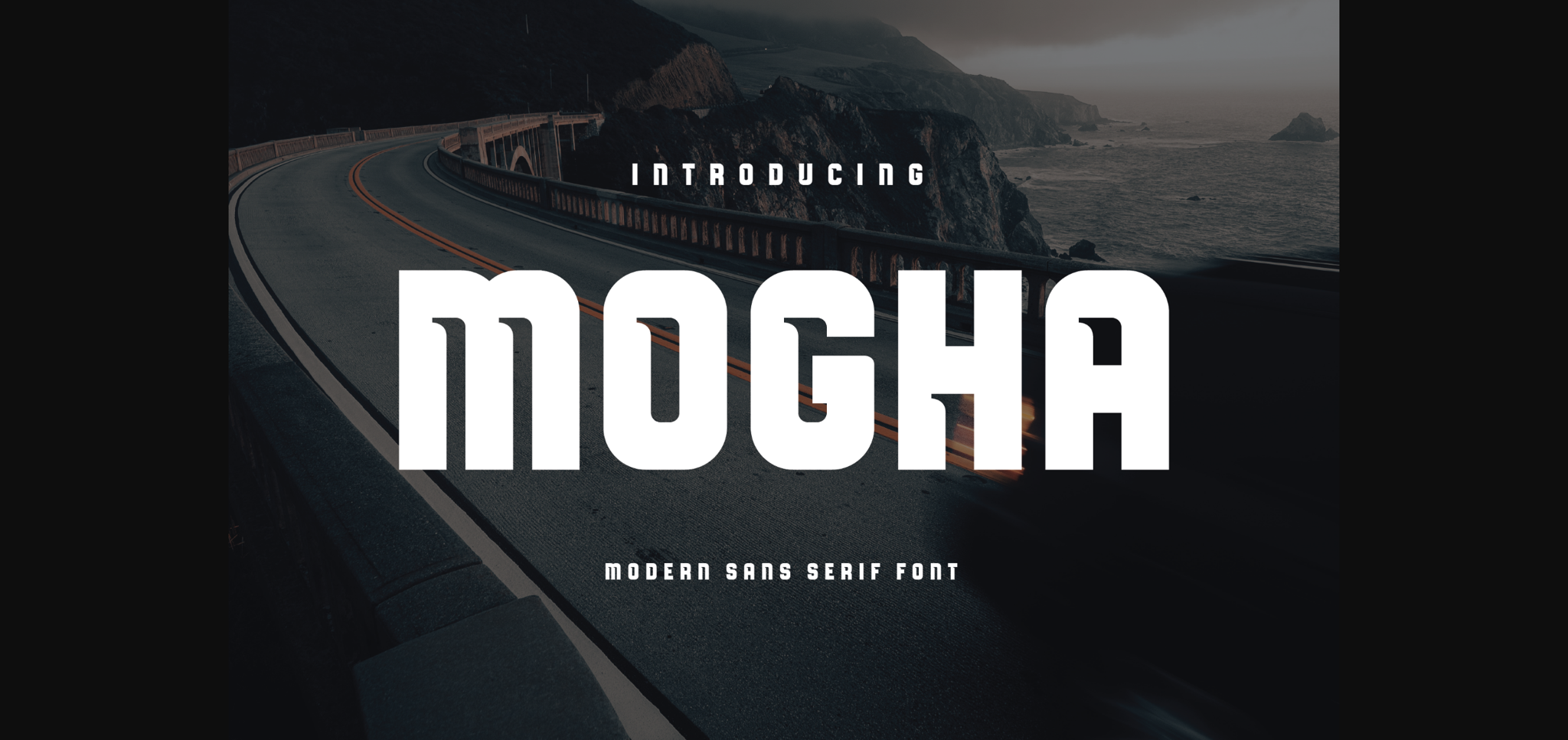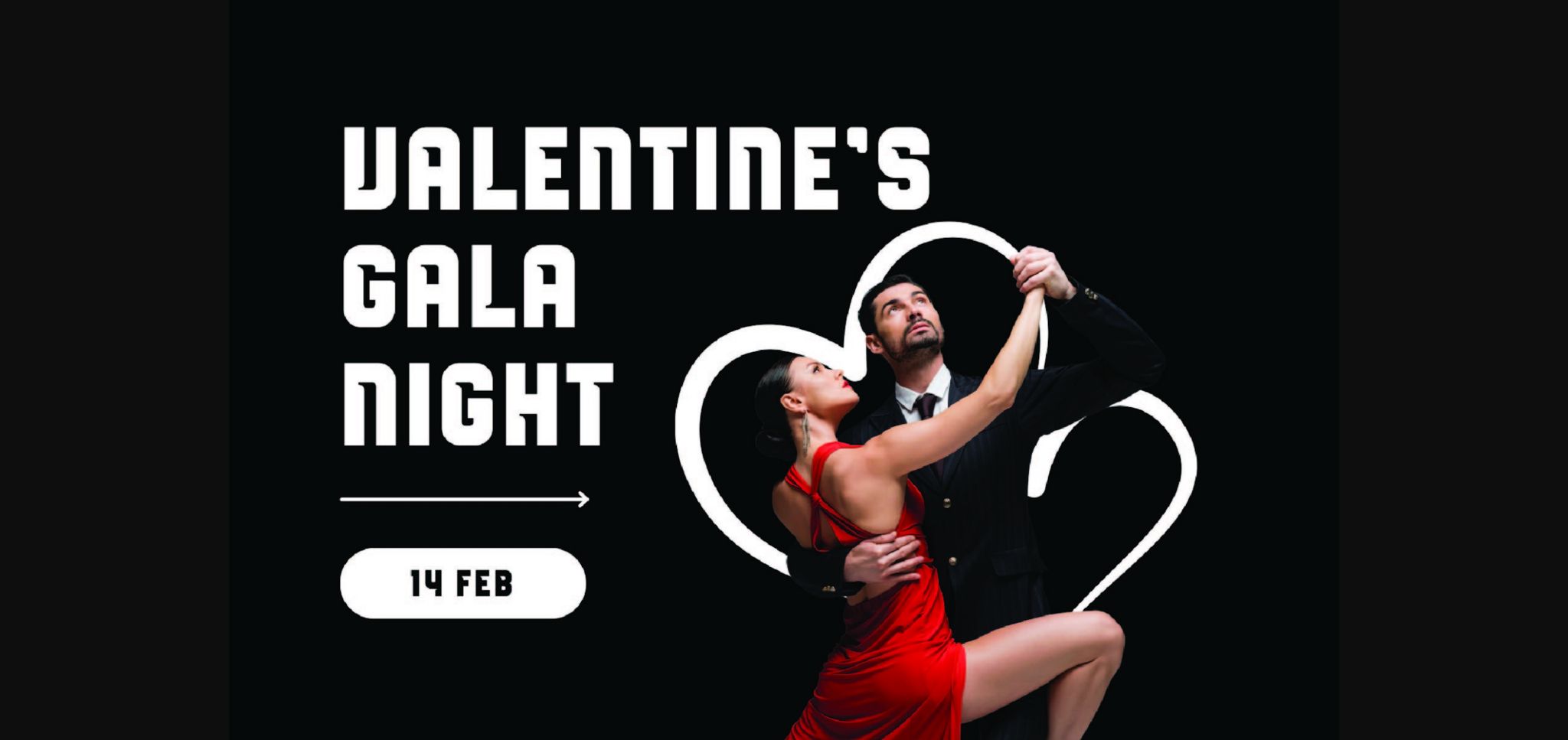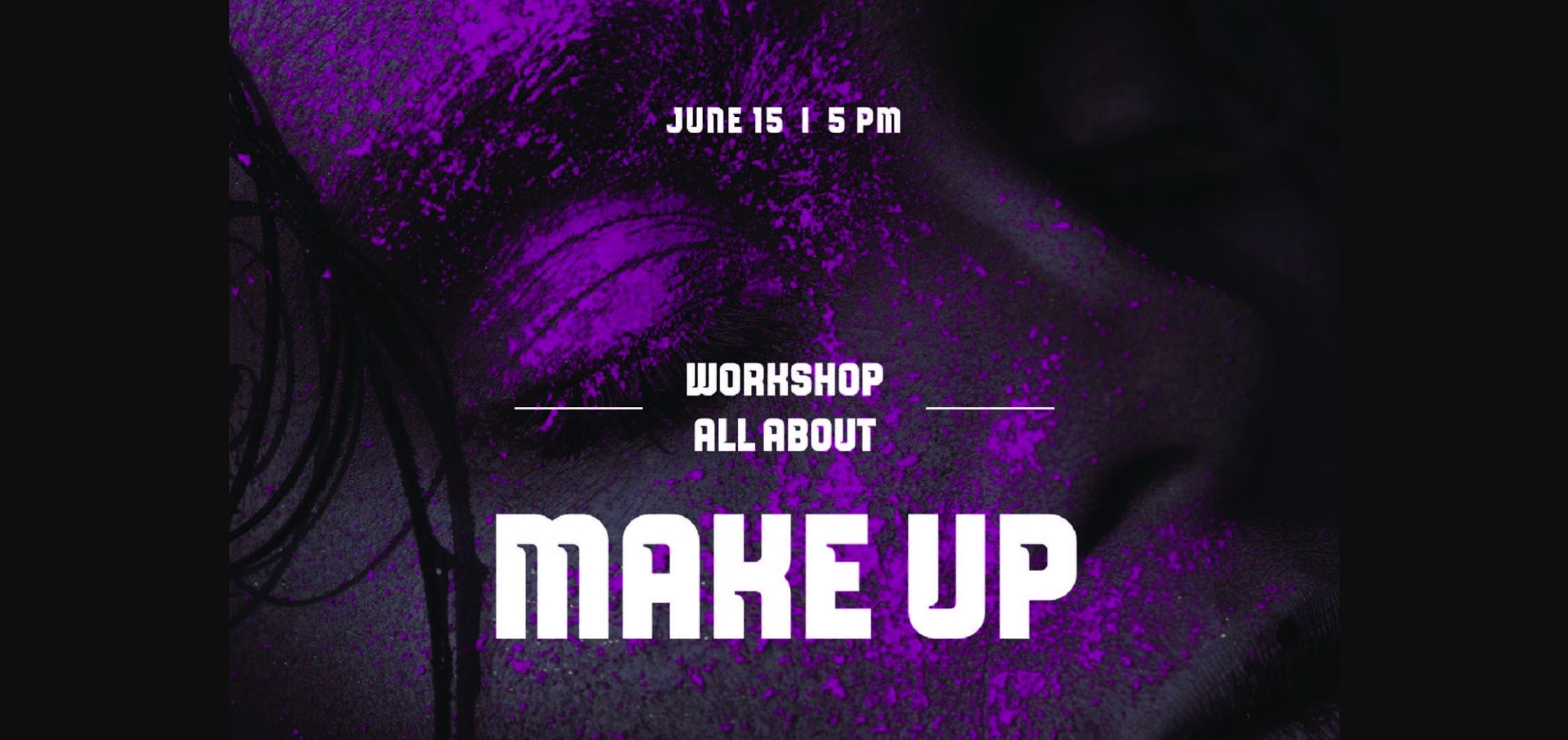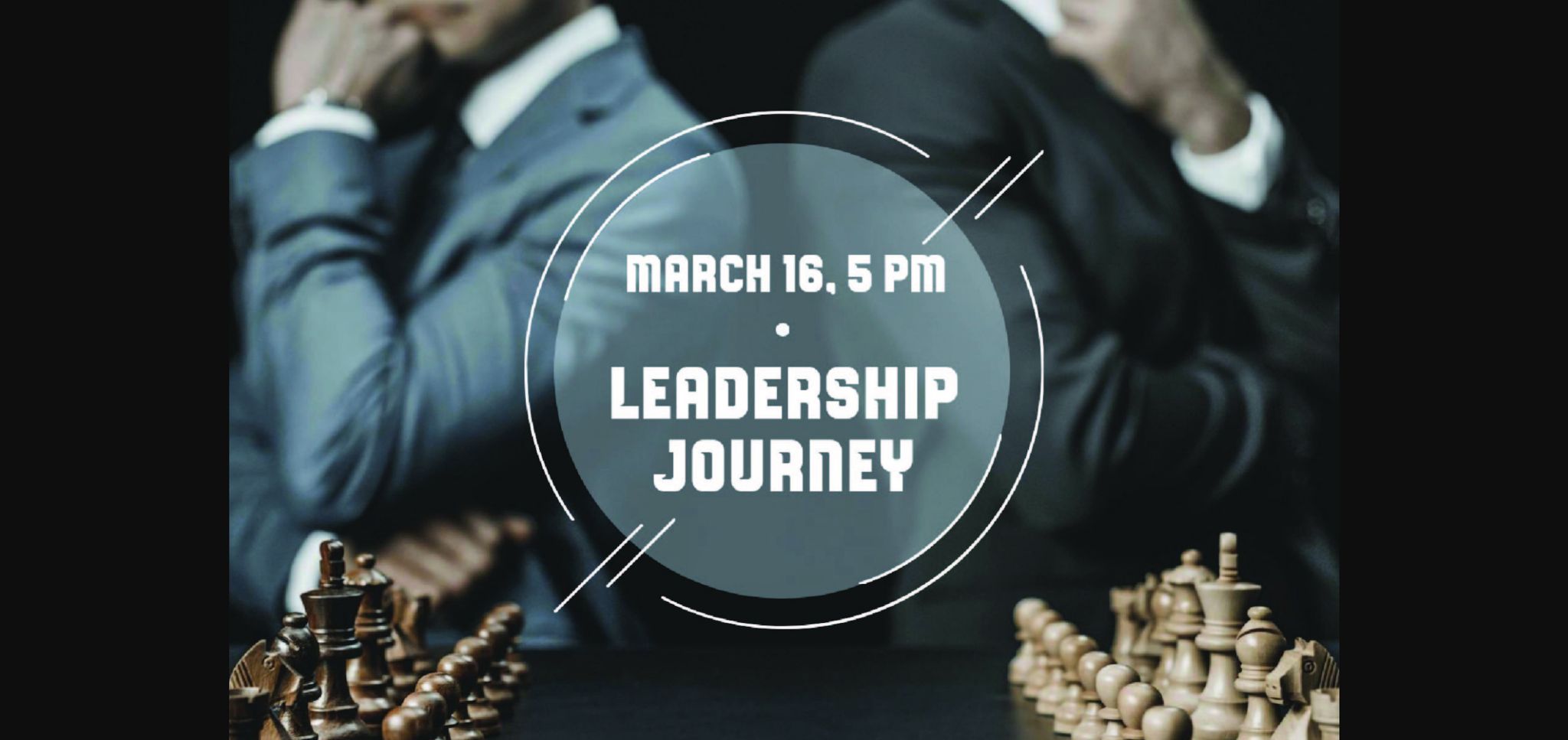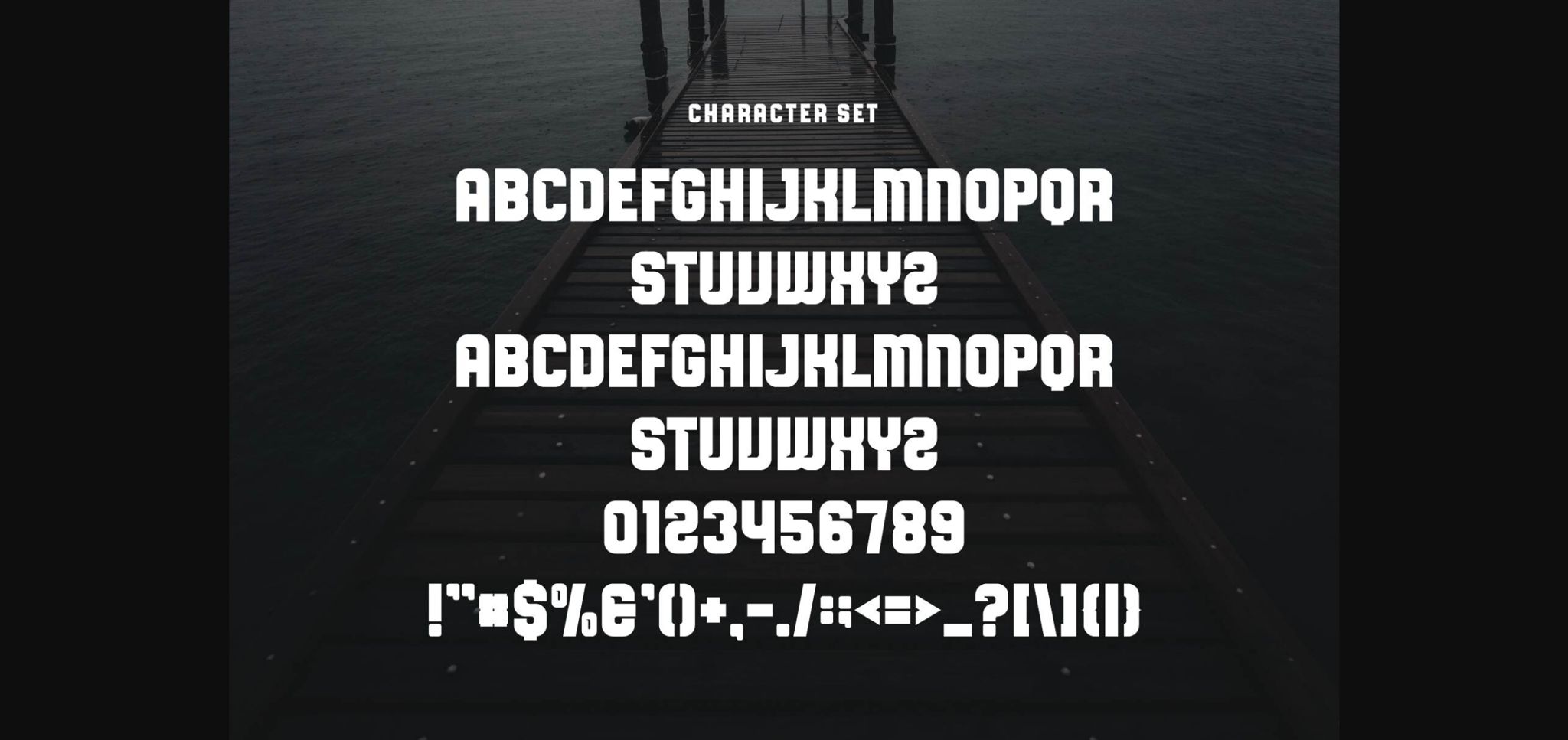
About Mogha Font
Mogha Sans Font Typeface inspired by the famous minimalist logo perfect to design templates, brochures, videos, advertising branding, logos, invitations, layout design, elegant crafting, beauty design, and others.